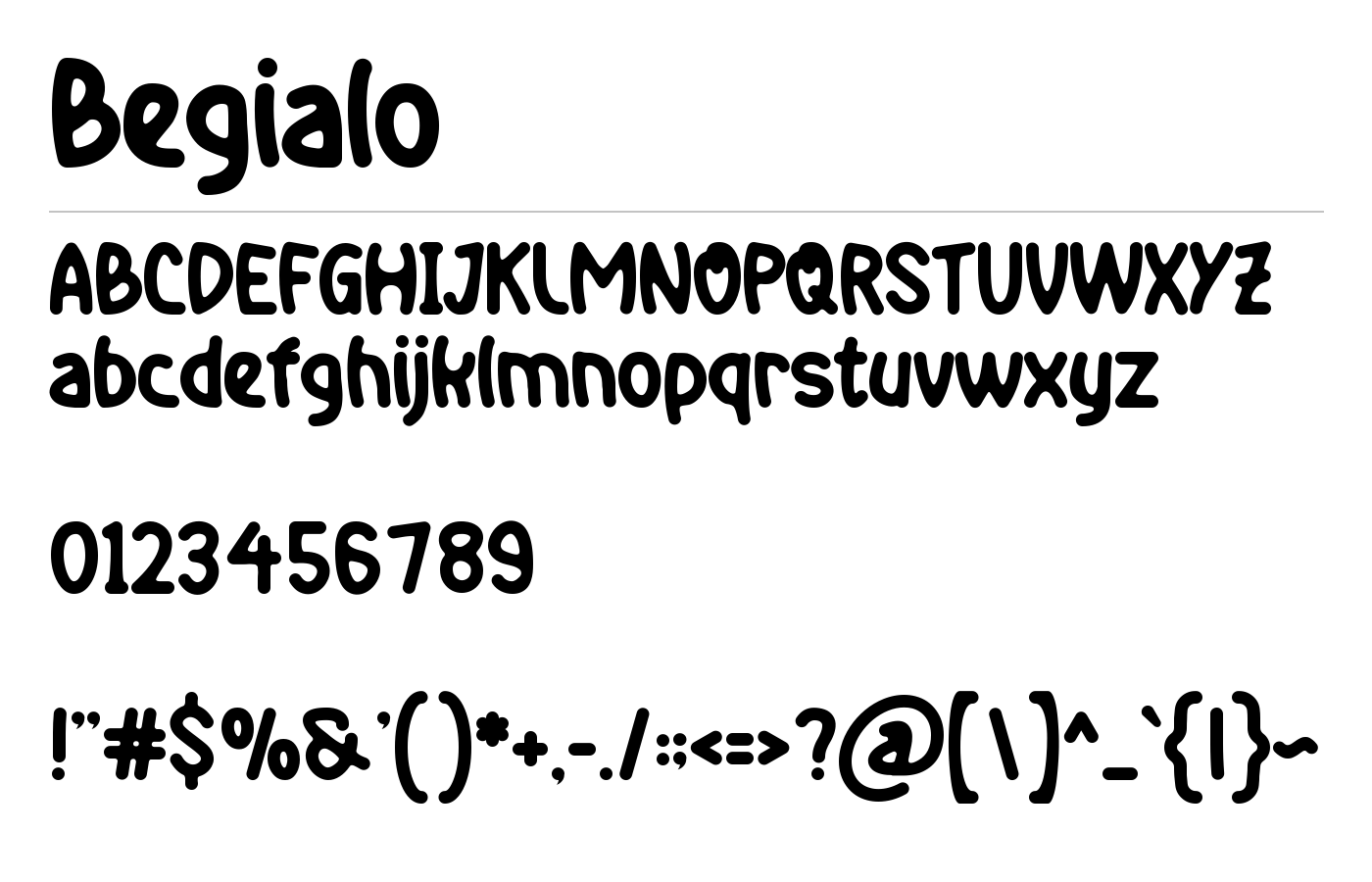
Begialo is a playful and rounded sans serif font with a casual, hand-drawn feel. Its bold weight and slightly irregular shapes make it perfect for fun, informal designs, adding a friendly and approachable vibe that works well in children’s books, posters, and creative branding. The font’s clear, chunky letterforms ensure readability while maintaining a lively and energetic personality.
Begialo Font
About Begialo Font
| Font family | Begialo Font |
| Designer | Maikohatta |